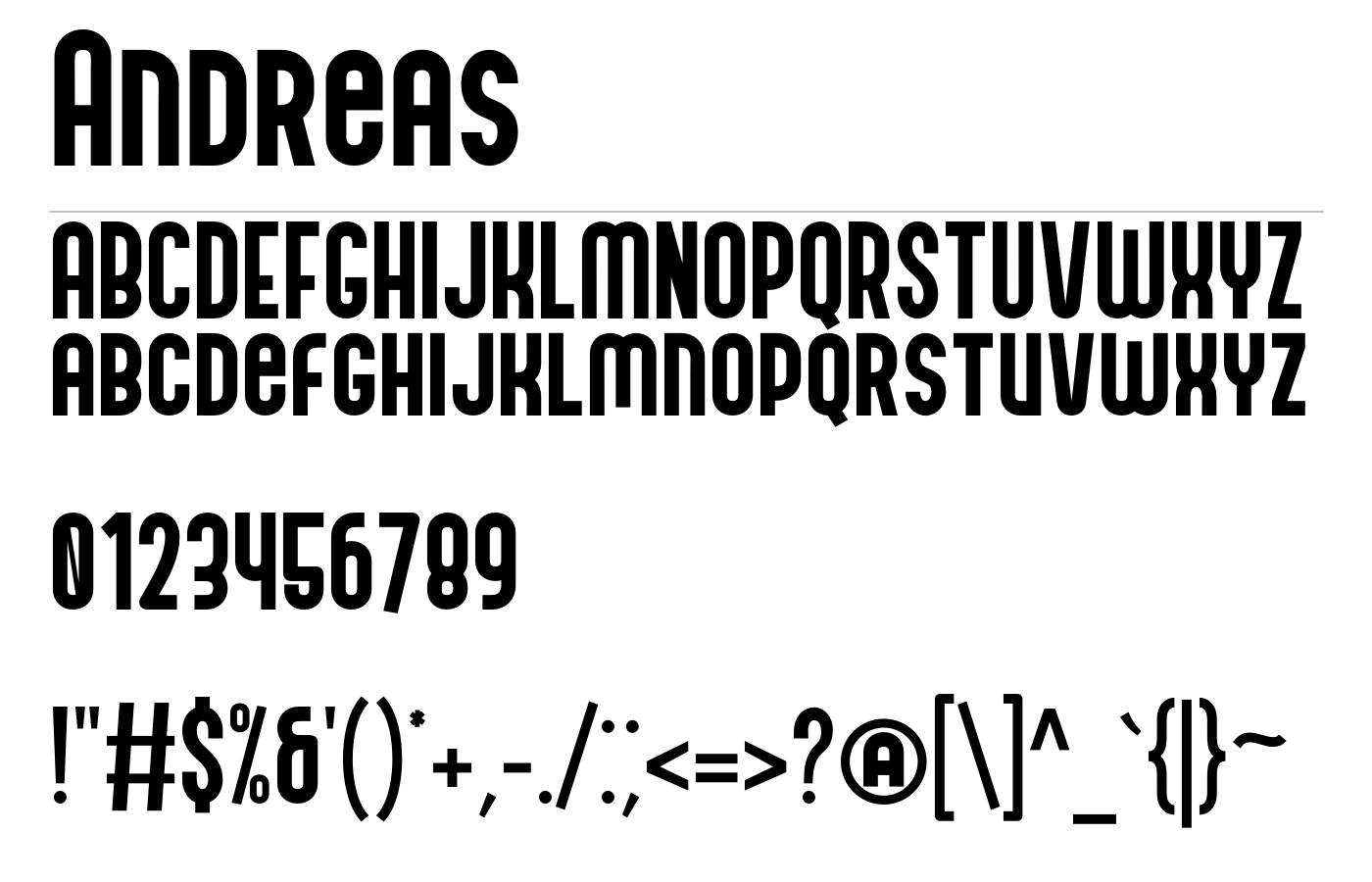
Andreas is a bold, condensed sans-serif font with a modern and geometric feel, featuring strong vertical lines and slightly rounded terminals that add a touch of softness. Its tall x-height and uniform stroke weight create a clean, striking appearance ideal for impactful headlines, branding, and posters where clarity and a contemporary look are essential. This font works well for brands seeking a confident, stylish tone with a minimalist edge.
Andreas Font
About Andreas Font